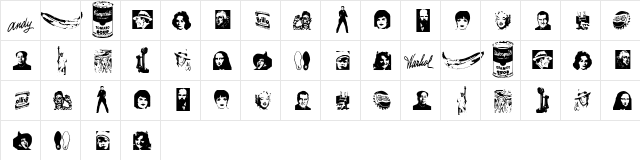
PopArt Regular
Design Context for PopArt Typeface
PopArt is a composed and adaptable typeface that performs quietly and consistently across a wide range of design contexts.